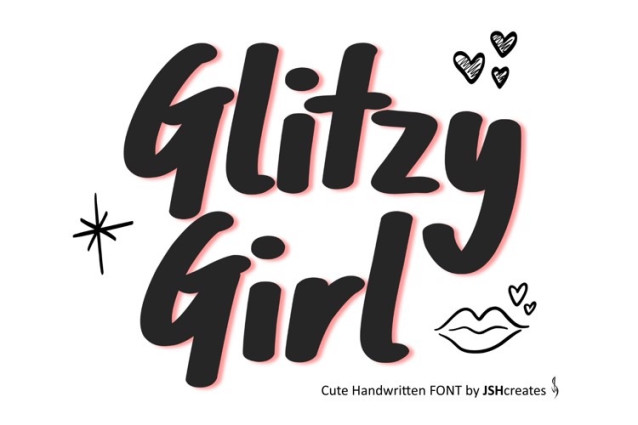
Glitzy Girl Font
Glitzy Girl Font Perfect for advertising and display purposes, including banners, book covers, shirts, posters, logos and much more!
Font includes all upper, lowercase letters, numbers, characters, punctuation, and 9 illustrations.